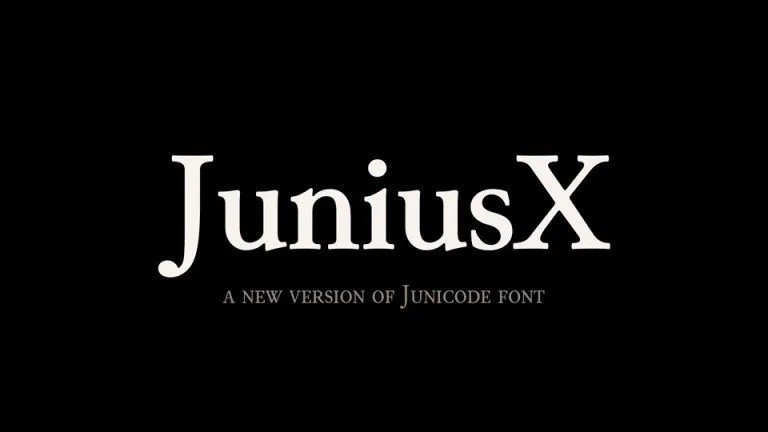
JuniusX Serif Font Family
JuniusX Font is a new serif that is an instant classic. Vintage curves and crisp serifs make this typeface feel modern and nostalgic, all at once, while still looking beautiful for both headings and body type.
JuniusX is the perfect font for creating gorgeous branding, logos, body text, and more!